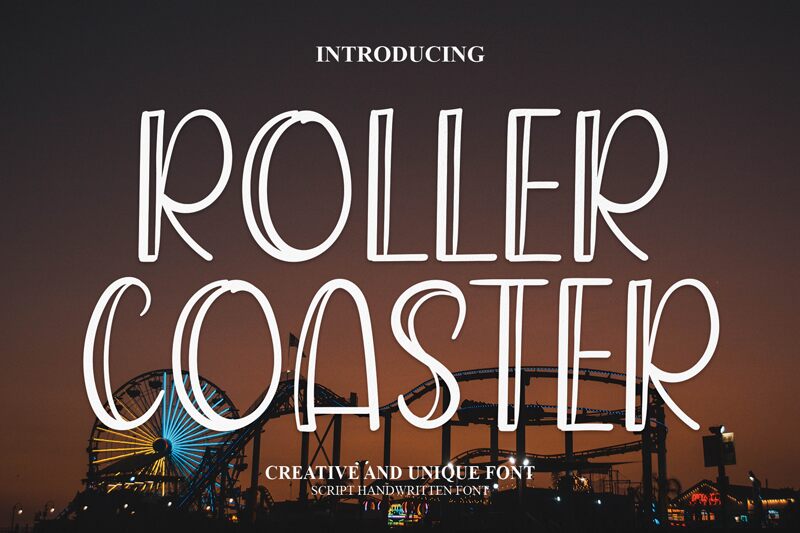
Roller Coaster
Roller Coaster, designed by Belina Studio, is a stunning display font that's perfect for projects that require a bold and playful touch. With its semi-light weight and semi-condensed width, this outlined font is ideal for creating attention-grabbing headlines, posters, and social media graphics. The Roller Coaster font's unique style adds an edgy feel to any design project. It's perfect for branding projects for amusement parks or carnival events. You could also use it to create eye-catching flyers or brochures promoting fun activities like roller skating or indoor trampoline parks. Give your designs a thrilling ride with the Roller Coaster font!
the latest style letters are perfect for wall displays, wedding invitations, social media post logos, advertisements, product packaging, product designs, labels, photography, watermarks, invitations, stationery, and any project that requires taste handwriting.